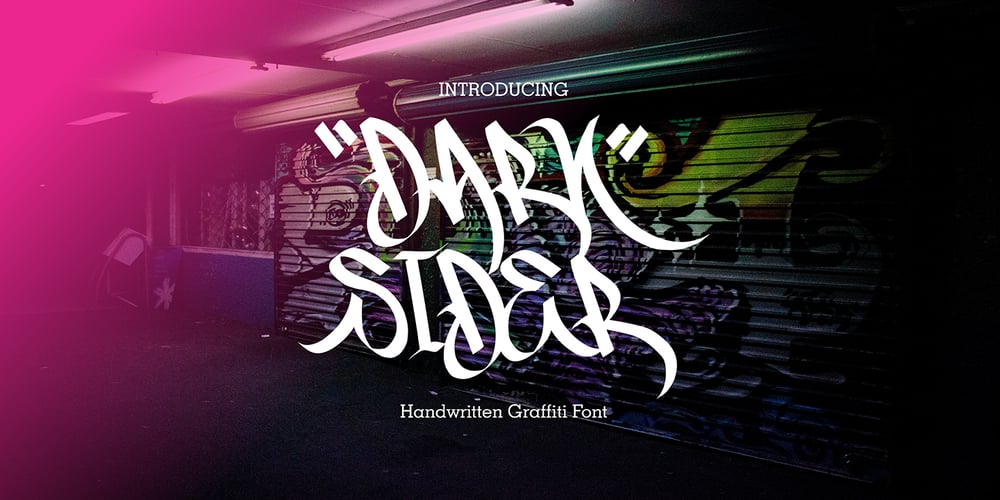
Dark Sider Font Family was designed by Sipanji and published by Sipanji21. Dark Sider contains 1 styles and family package options. Hello, this is Dark Sider- Natural Handwritten Graffiti Tag Font!This font designed so that users can use it more easily and make graffiti designs easier. Dark Sider is very suitable for use in various media such as; packaging, logos, labels, posters, shirt designs, bulletins, typography, and many other media, especially with graffiti look.